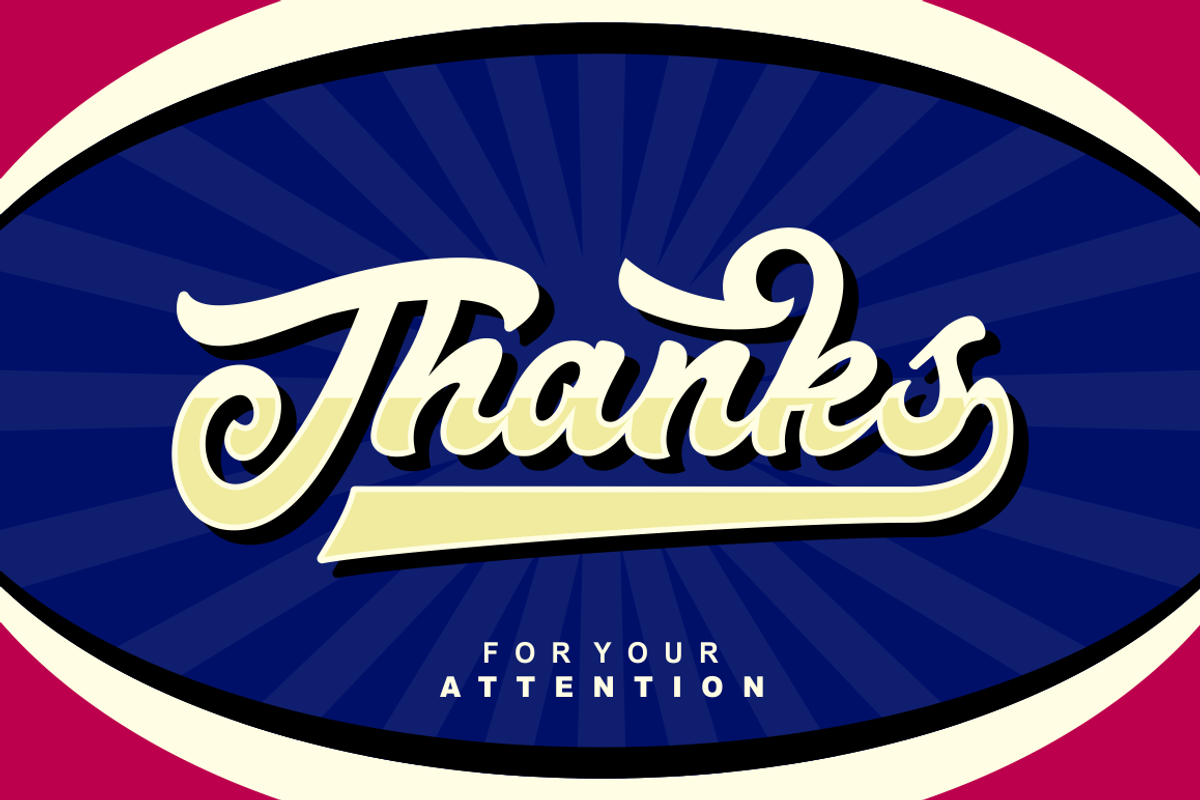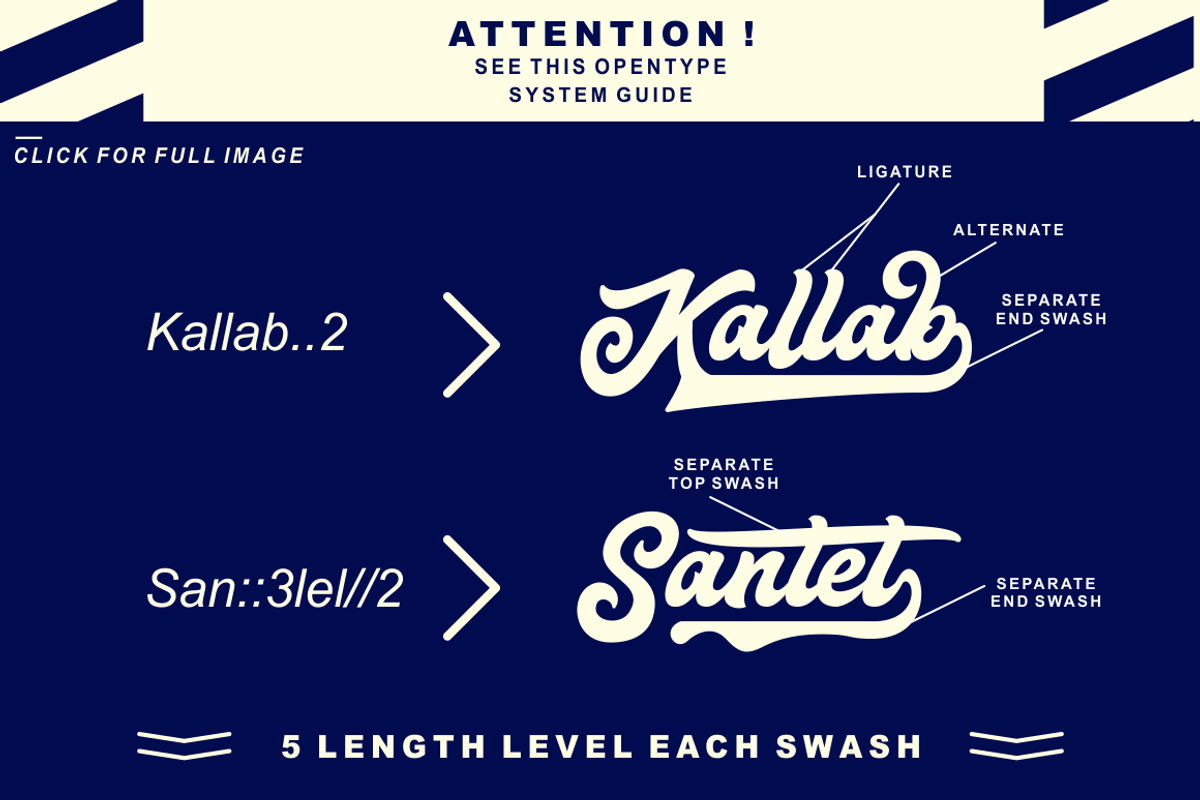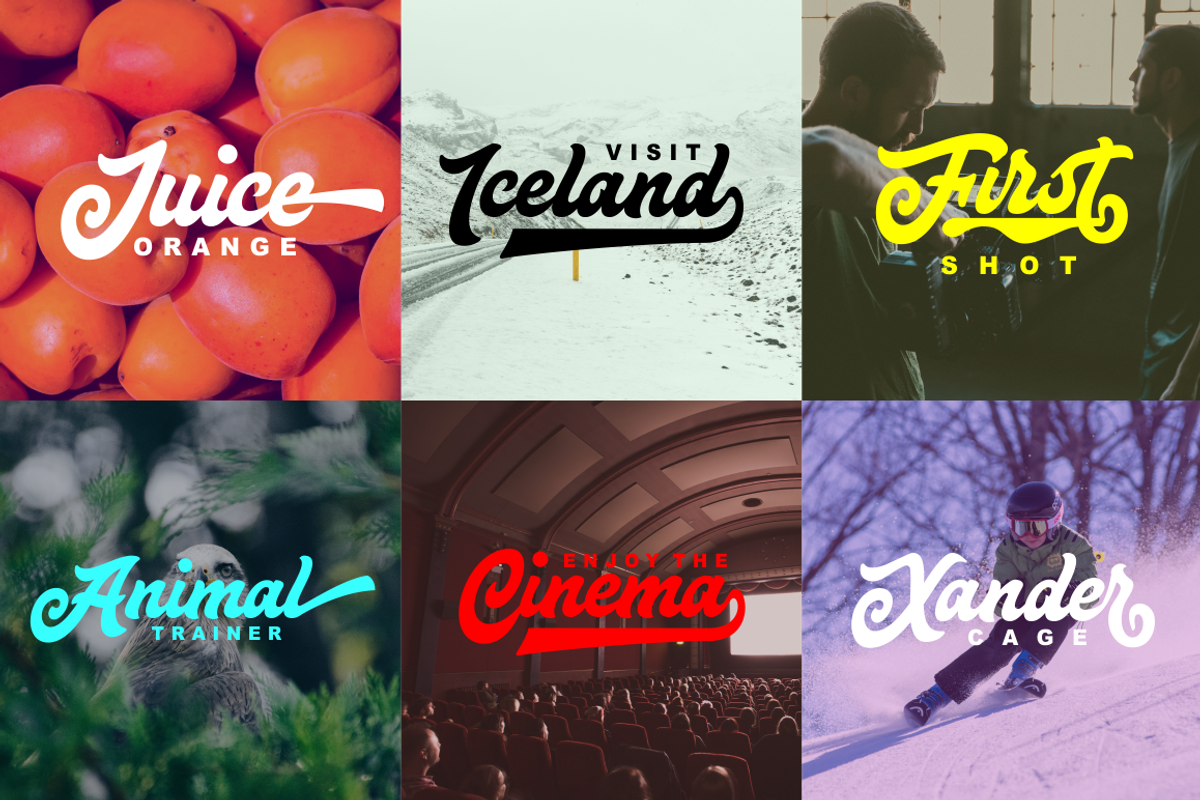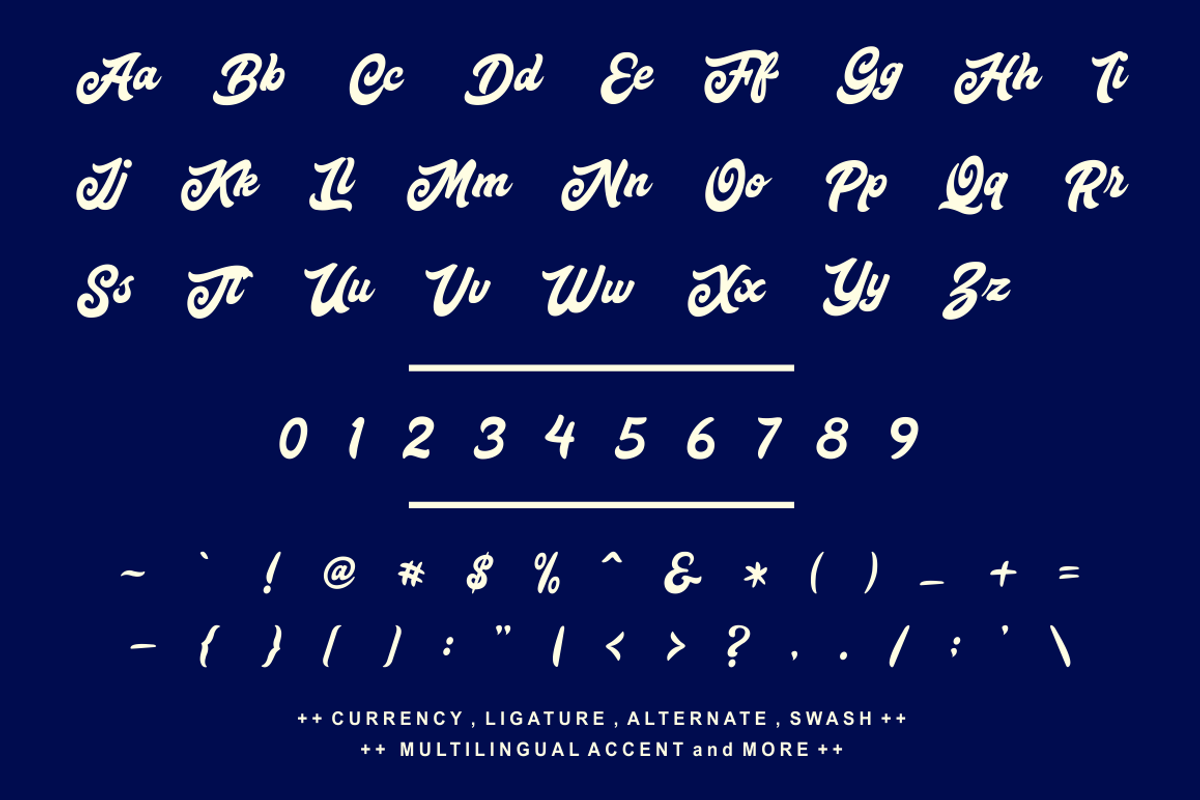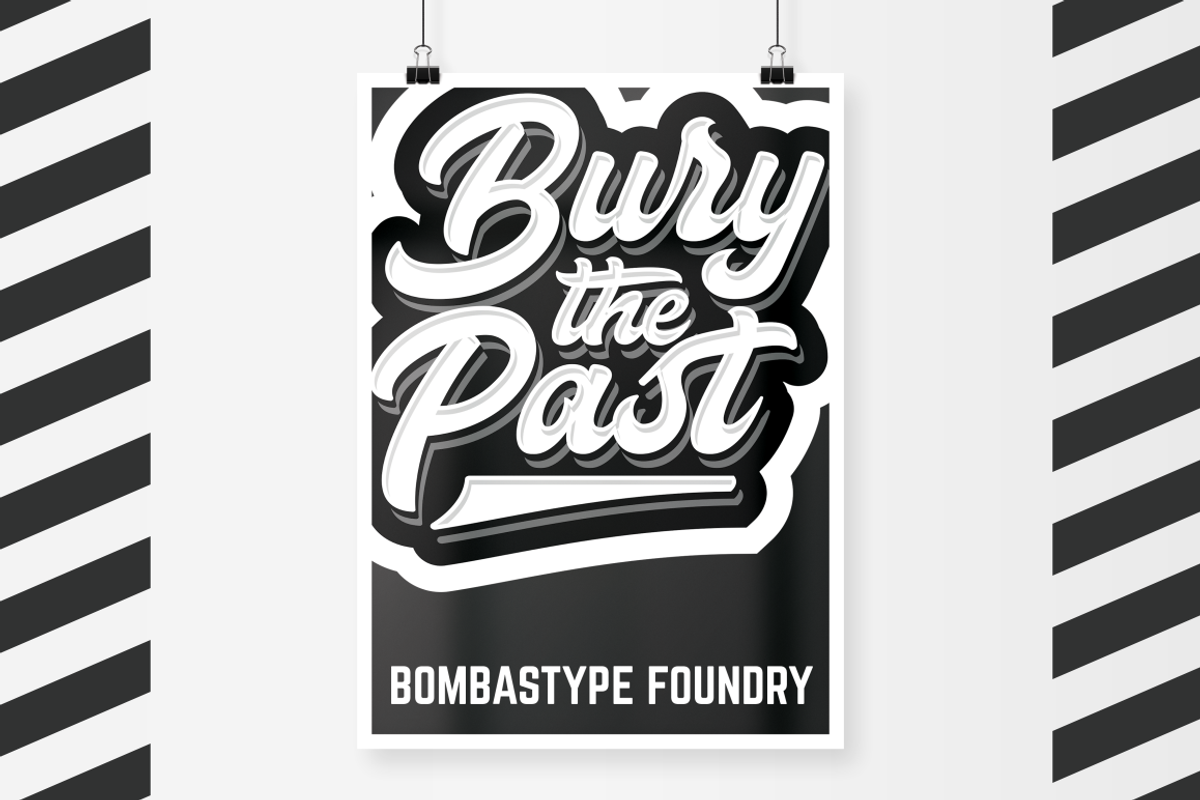
Mattoa
Proudly present Mattoa , a bold script typeface. This font especially made for logotype and display purpose . But don't let we restrain your imagination of course. Work well on both vintage and modern design. You can see our design implementation on preview images to check the result sample.
- Standard Character ( Uppercase, Lowercase, Numeric, Currency, Punctuation )
- Alternates Character
- Separate Swash System in 1 font ( Make more customizable )